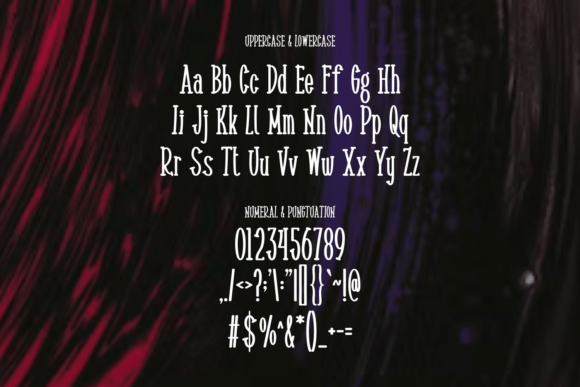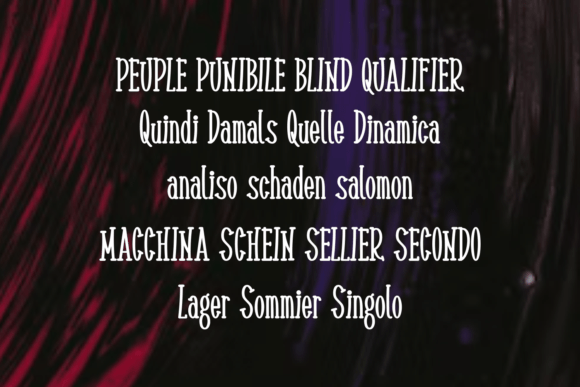
Introduction to Murbey Font
Murbey is a fun and unique display font.
Fall in love with its incredibly versatile style and use it to create quirky stickers, fun stationery art, eye-catching social media posts, and much more .
Key Features of Murbey Font
Why Choose Murbey Font?
Murbey Font offers exceptional quality and versatility, making it a valuable addition to your design toolkit. Whether you’re creating for personal projects or commercial use, Murbey Font delivers professional results.